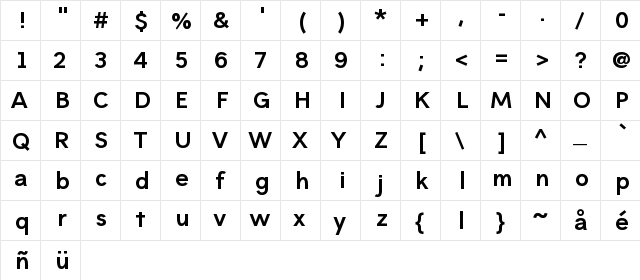
KingsHatHvSpCB Regular Font Preview
KingsHatHvSpCB Regular
Design Context for KingsHatHvSpCB Typeface
KingsHatHvSpCB is a composed and adaptable typeface that performs quietly and consistently across a wide range of design contexts.